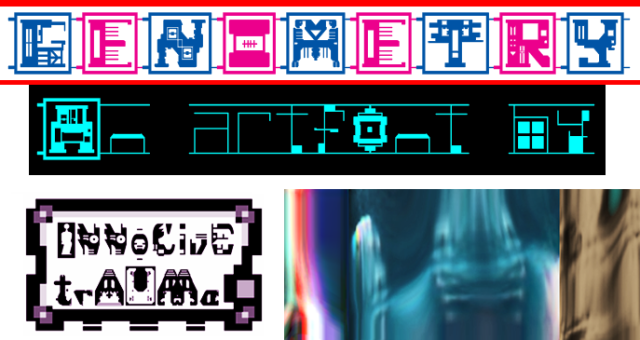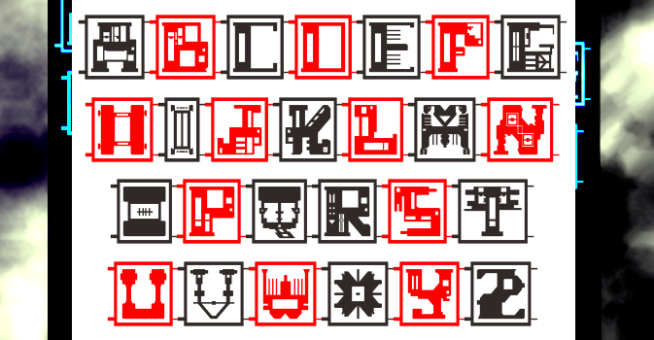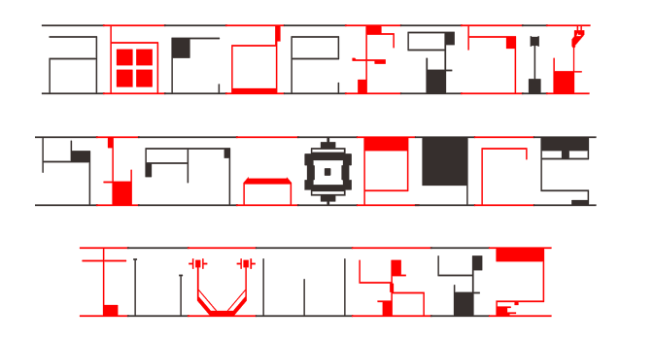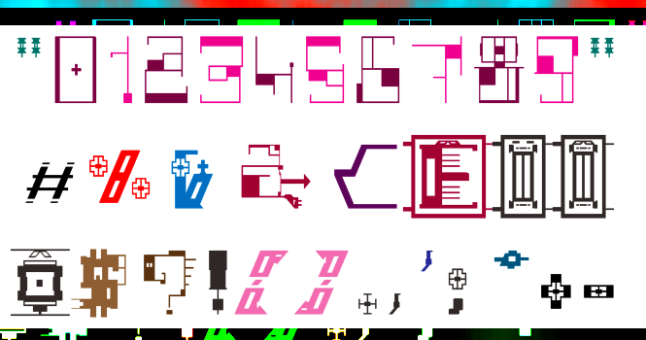
trAUMa 44 / Genometry
"Genometry", like all the "trAUMa" series, works at the frontier between Art & Type Design, Figuration & Abstraction, each font is a comprehensive world in which every glyph is a "living" entity. But put together they can produce your messages in the most accurate way.